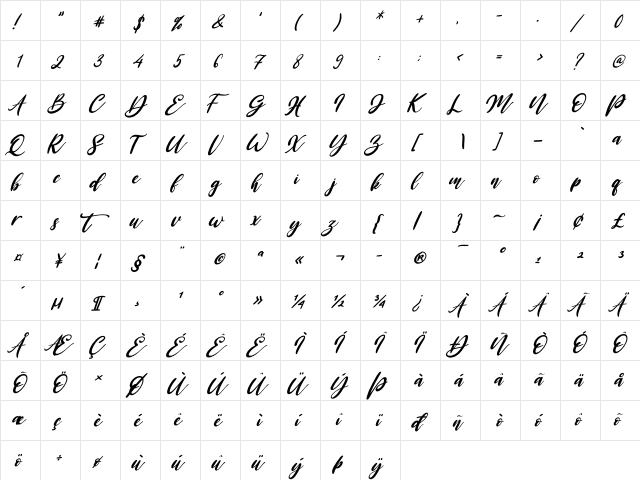
Ellternity Italic Regular
Design Context for Ellternity Italic Typeface
Ellternity Italic is a composed and adaptable typeface that performs quietly and consistently across a wide range of design contexts. The slanted form adds forward momentum and visual energy.
Pro Tip: Try Ellternity Italic for annotation and caption copy alongside an upright companion — the contrast in angle creates a dynamic but ordered typographic system.